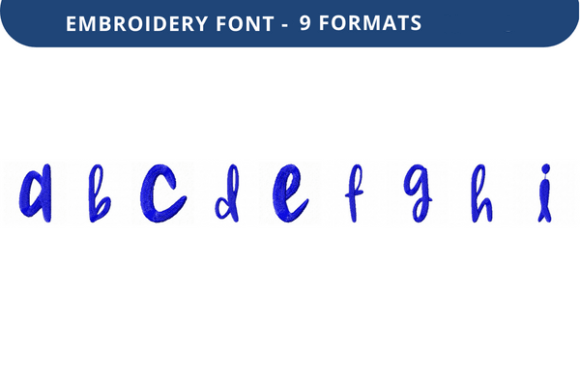
Smooth Slushie Font Lowercase a to I
The Smooth Slushie Font Lowercase a to I is a unique embroidery font designed for those who want to add a creative and stylish touch to their fabric projects. With its smooth, flowing lines and modern aesthetic, this font is ideal for personalizing items like clothing, home decor, and custom gifts. Whether you're a hobbyist or a professional, this font offers versatility and ease of use, making it a valuable addition to any embroidery toolkit.
Why Different Audiences Care About Smooth Slushie Font Lowercase a to I
For many people, the choice of an embroidery font isn’t just about aesthetics—it’s also about functionality, cost-effectiveness, and long-term value. Each audience group may have different priorities when selecting a font like Smooth Slushie Font Lowercase a to I.
Beginners: A Gateway to Creativity
Beginners often look for fonts that are easy to use and visually appealing without requiring advanced technical skills. The Smooth Slushie Font Lowercase a to I fits this need perfectly. Its clean design allows new users to experiment with personalization without feeling overwhelmed by complex patterns. For someone just starting out in embroidery, this font can be a great way to practice and build confidence.
Professionals: Efficiency and Quality
Creators and Artists: Expressing Individuality
For creators and artists, the visual appeal of a font is paramount. The Smooth Slushie Font Lowercase a to I offers a modern, stylized look that can enhance the overall design of a project. It's perfect for adding unique text to art pieces, fashion items, or custom products that reflect personal style and creativity.
Business Owners and Entrepreneurs: Commercial Value
Entrepreneurs and small business owners often seek fonts that offer both aesthetic value and commercial potential. The Smooth Slushie Font Lowercase a to I can be used to create branded merchandise, promotional materials, or personalized gifts. Its versatility allows businesses to expand their product offerings while maintaining a cohesive brand identity.
Consumers and Hobbyists: Personalization at Its Best
Hobbyists and consumers looking to personalize everyday items will appreciate the flexibility of the Smooth Slushie Font Lowercase a to I. Whether it's adding a name to a t-shirt, a date to a quilt, or a quote to a pillow, this font provides a stylish and customizable option for a wide range of projects.
Practical Applications Across Different User Groups
The applications of the Smooth Slushie Font Lowercase a to I vary depending on the user’s needs and goals. Here are some examples:
Key Considerations When Choosing an Embroidery Font
When selecting an embroidery font like Smooth Slushie Font Lowercase a to I, it's important to consider several factors that align with your specific needs:
Is Smooth Slushie Font Lowercase a to I Right for You?
If you're looking for a versatile, stylish, and user-friendly embroidery font, the Smooth Slushie Font Lowercase a to I could be the perfect choice. Whether you're a beginner exploring the world of embroidery or a professional seeking reliable and high-quality designs, this font offers something for everyone. Its adaptability and aesthetic appeal make it suitable for a wide range of applications, from personal projects to commercial ventures.